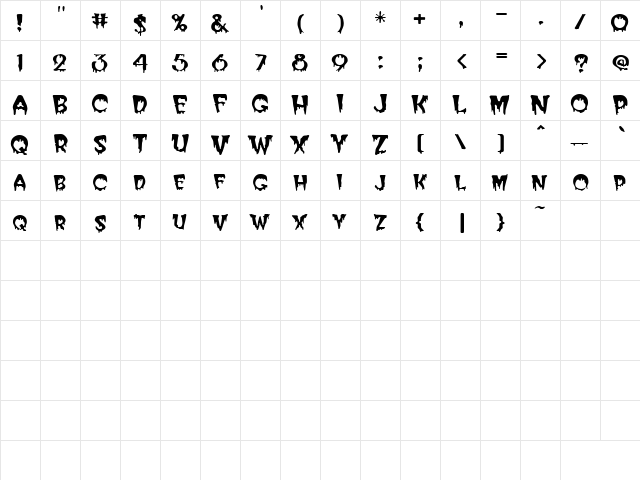
HORROR Regular
Design Context for HORROR Typeface
HORROR leans into the macabre with letterforms designed to disturb and intrigue in equal measure.
Perfect for anything that needs to unsettle — game titles, horror branding, and macabre invitations.
Font Pairing: Pair with a clean neutral sans-serif for body copy to let HORROR's character lead without overwhelming the composition.
Pro Tip: Use HORROR at larger display sizes for maximum impact. Consider generous tracking to let the disturbing character of each letterform breathe.